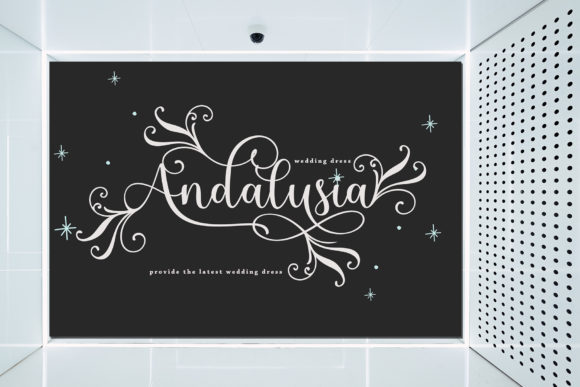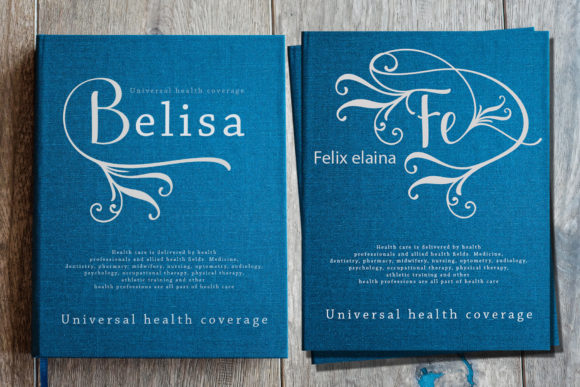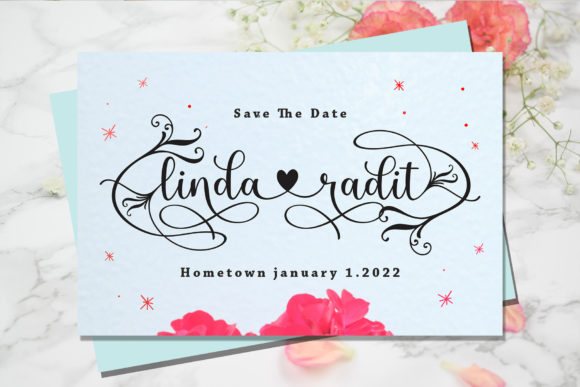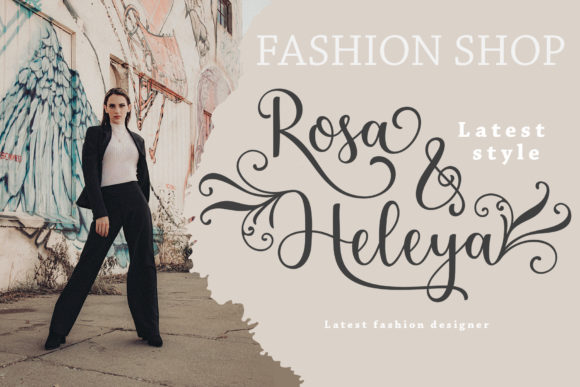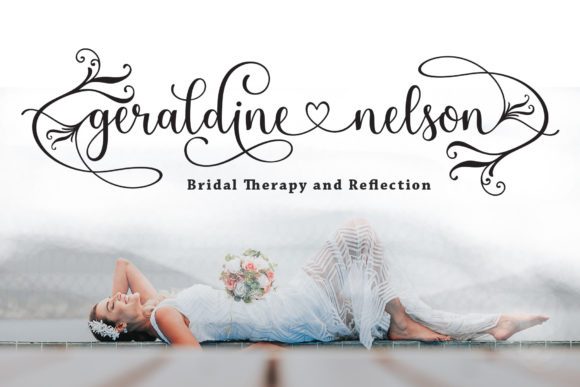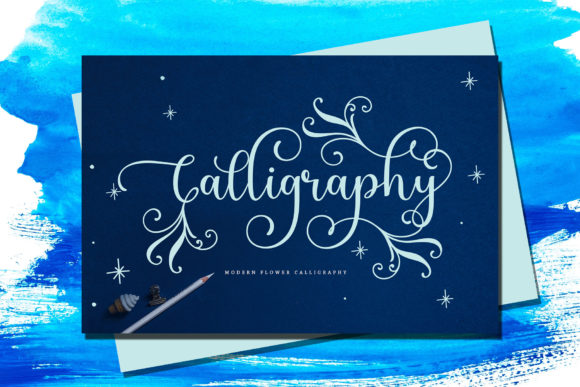
The Perfect Blend of Classic and Contemporary: Donitea Script Font
As a designer, there’s nothing quite like the thrill of discovering a new font that speaks to your creative soul. It’s that moment when you envision the perfect project, and the font becomes the key to bringing it to life. For me, that moment came when I stumbled upon the exquisite Donitea Script Font.
Donitea Script Font is a masterfully designed handwritten font that effortlessly blends classic calligraphic influences with a fresh, contemporary feel. This stunning font is perfect for designers looking to add a touch of elegance and sophistication to their projects. With its PUA encoding, accessing all the glyphs and swashes is a breeze, making it an absolute delight to work with.
Whether you’re a seasoned designer or just starting out, Donitea Script Font is an invaluable addition to your toolkit. Its versatility and charm make it an ideal choice for a wide range of projects, from wedding invitations to branding materials and beyond.
Donitea Script Font Key Features
- Unique Characteristics: Elegant, cursive script with a modern twist, ideal for titles, headings, and quotes
- Font Style: Script, Casual, Elegant
Donitea Script Font Review
Overall, I found the Donitea Script Font to be a beautiful and elegant addition to any design project. ✨ Its flowing, handwritten feel is perfect for creating a sense of sophistication and luxury. ✨
Here are some of the things I like about Donitea Script:
- Unique character set: The font features a wide range of characters, including punctuation marks and numbers, which adds to its versatility.
- Customizability: Donitea Script can be easily customized to fit different design styles and preferences.
- Legibility: Despite its script-like appearance, the font is still easy to read, making it suitable for both display and body text.
However, I did encounter some limitations with Donitea Script:
- Limited language support: The font may not support all languages, which could be a problem for projects that require multilingual content.
- Not suitable for small font sizes: Donitea Script looks best at larger font sizes, and may become too blurry or illegible at smaller sizes.
- May not be suitable for technical content: The font’s script-like appearance may make it difficult to read for technical or instructional content.
Overall, I would recommend Donitea Script Font for projects that require a touch of elegance and sophistication. While it has some limitations, it’s a beautiful font that can add a lot of visual interest to a design. ⚠️ Just be mindful of its limitations and use it accordingly.
Getting the Most Out of Donitea Script Font
Donitea Script Font is ideal for creating elegant, handwritten-style text. To get the most out of it, try the following tips:
- Use it for titles, headings, and quotes.
- Combine it with other fonts for a unique look.
- Experiment with different font sizes and colors.
Donitea Script Font is commonly used for:
- Branding and logo design.
- Social media graphics and captions.
Alternatives to Donitea Script Font
Lobster Font
Lobster Font is a casual, cursive script font ideal for use in headings, titles, and body text. It has a playful, elegant feel that’s perfect for creative projects. Lobster Font is similar to Donitea Script Font in its flowing, handwritten style but has a more refined and polished look.
Great Vibes Font is a modern, elegant script font suitable for use in a variety of projects, from advertising and marketing materials to wedding invitations and social media graphics. It has a sophisticated, high-end feel that’s perfect for making a statement. Great Vibes Font is similar to Donitea Script Font in its flowing, connected strokes but has a more refined and precise look.
Pacifico Font
Pacifico Font is a beautiful, elegant script font with a tropical feel that’s perfect for use in travel, food, and lifestyle projects. It has a relaxed, casual vibe that’s great for creating a sense of warmth and approachability. Pacifico Font is similar to Donitea Script Font in its flowing, handwritten style but has a more laid-back and carefree feel.
Is Donitea Script Font available in different languages?
Donitea Script Font supports the Latin alphabet and some Cyrillic and Greek characters. However, it may not support all languages or scripts. If you need to use the font for a specific language, please check the font’s documentation or contact the font creator for more information.